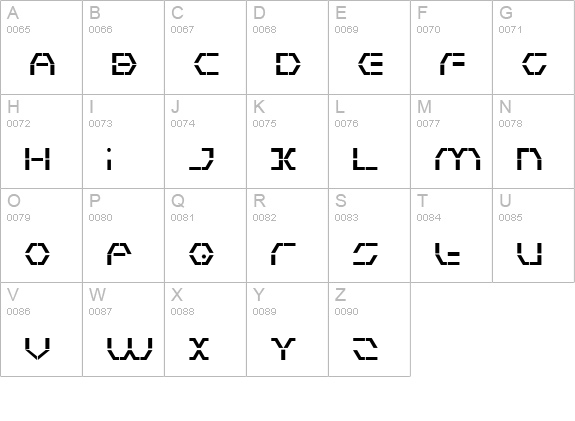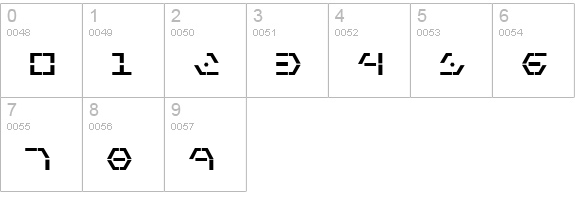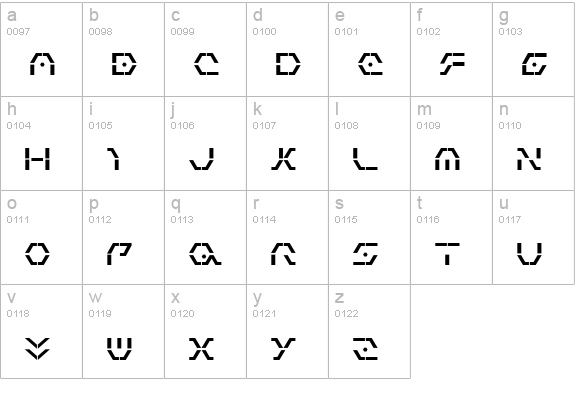
Zeta Sentry Bold Font Details
Zeta Sentry Bold is a strong, high-contrast variant in the Zeta typeface family \xE2\x80\x94 well suited to headlines, attention-grabbing titles, and strong calls-to-action.
Zeta Sentry Bold is a striking and powerful font that exudes confidence and modernity. With its bold lines and geometric shapes, this font commands attention and makes a statement in any design project. Whether you're creating a poster, logo, or website, Zeta Sentry Bold will add a touch of sophistication and strength to your work. The best part about Zeta Sentry Bold? It's completely free! You can easily download this versatile font from FontsMarket.com and start using it in your projects right away. With its unique style and bold presence, Zeta Sentry Bold is sure to make a lasting impression on your audience.